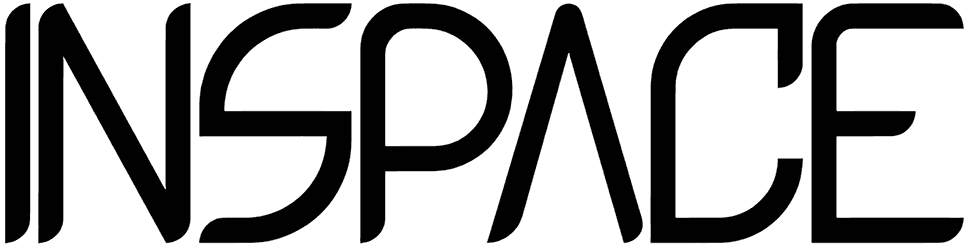
Inspace Font
Inspace is an awesome space font that is offered in different styles and weights, giving you a variety of options. This sci-fi font has an exciting style for the viewers and makes them stare at the subject.
The Inspace font may be helpful in several cases, such as websites, social media posts, and applications; however, it does not support numbers and symbols. This font’s letters have a geometric design with sharp edges creating an incredible form, so download it now.